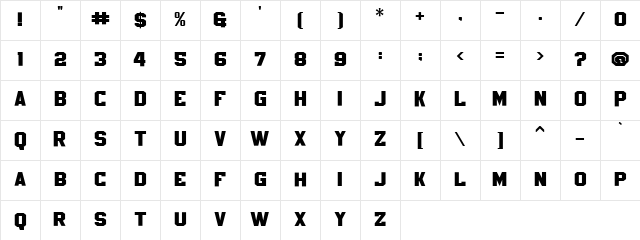
Golden Varsity brings high-energy athletic personality to the page - its confident, muscular forms are built for impact.
Pro Tip: Use Golden Varsity in all-caps headlines where its athletic energy can fully express itself. Pair with a solid, simple sans for supporting text.